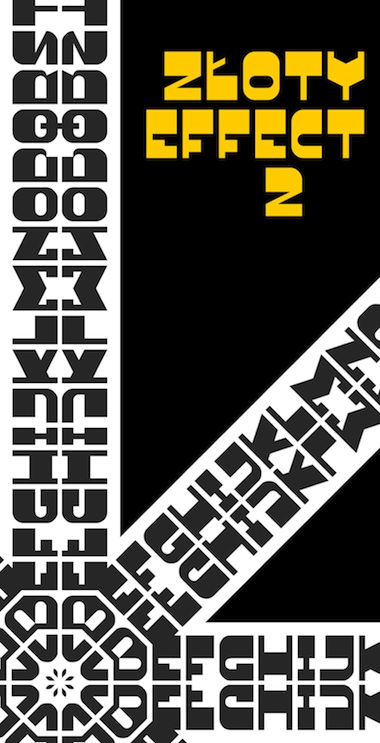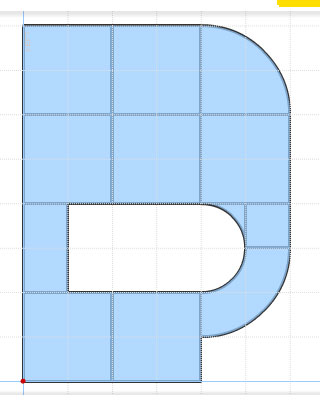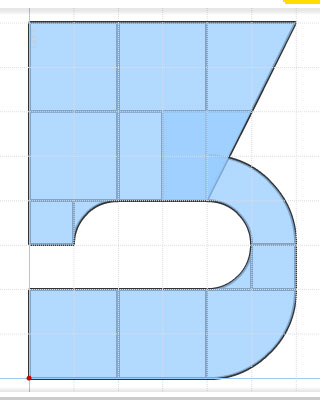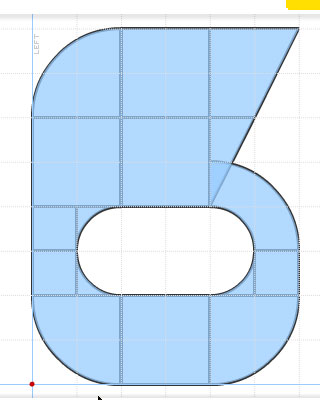
• For Poland. I include the polish's alphabet: their special diacritics are in the lower case (please, type the "a", "c", "e", "l", "n", "o", "s", "y" -for the 1st z- and "z" for them). "Zloty" -beautiful word- means "golden" in polish.
For Poland. I include the polish's alphabet: the special diacritics are in the lower case (please, type the "a", "c", "e", "l", "n", "o", "s", "y" -like 1st z- and "z" for them).
"Zloty" -beautiful word- means "golden" in polish.
Wow! This is very nice. Your hallmarks are all over it. Must have been a good vacation. 10/10
Cute indeed, retrocosmoalien feel, you're master in evoking 70s in a modular way
A really great, strong design ... so distinctive and so readable. Excellent work 10/10
I'm not sure about the 5 and 6 though... they look a little off to me, but not sure how you could do it without breaking the grid.
Only, wouldn't it be easier to use if the poish characters were in their respective unicode points?
Nice demo pic with kaleidoscope effect. You could have made it in the shape of Z, like zloty.
It's a great design achievement that you were able to maintain this difficult style throughout the letters, numbers and symbols. The ? is just awesome.
My suggestions for P, 5, and 6:
P.S. When I cloned the font to take a look "under the hood" I saw so many awesome little details. Love the * and the @
"Złoty" (pronounced "zwotee") is also the currency that we use in Poland. Beatiful tribute, Zloty has a lot of "polish" taste and feel, especially when compared to designs from the communist era which are, in my opinion, not affected by the influence of modern standards, but contain pure value of polish soul instead.
Cool sample (the second one :) ).
I don't think I've noticed this before, nice work. Kind of reminds me of my recent font Afterburner.
The title should say 'złoty'
The złoty is also Poland's currency.